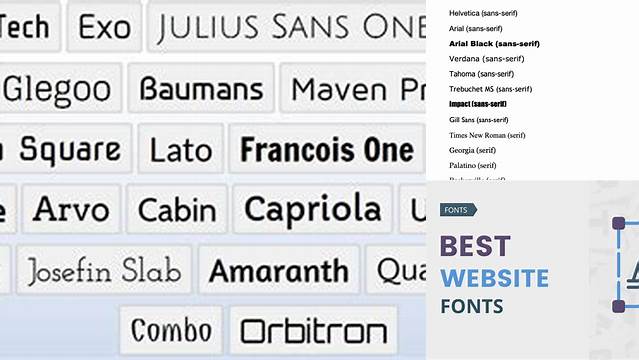
Web Fonts CSS Link: A Comprehensive Guide
Introduction: Web Fonts and Their Importance
Hey guys! Let's dive into the world of web fonts, which are super important for making your website look awesome and professional. Web fonts are essentially font files that you can link to your website, allowing you to use custom fonts that aren't necessarily installed on a user's computer. This is a game-changer because, without web fonts, you're limited to the standard, system-installed fonts like Arial, Times New Roman, or Verdana. While these fonts are okay, they can make your site look a bit dated and generic. By using web fonts, you can choose fonts that perfectly match your brand and design, making your website stand out and giving it a unique personality. Think of it like choosing the perfect outfit – the right font can make all the difference!
So, why are web fonts so crucial? First and foremost, they enhance the user experience. A well-chosen font can improve readability, making your content more engaging and easier to digest. Imagine reading a long article in a font that's hard on the eyes – you'd probably click away pretty quickly, right? With the right font, you can keep visitors on your page longer and reduce bounce rates. Secondly, web fonts play a significant role in branding. Consistency in your font choices across your website and other marketing materials helps to reinforce your brand identity. It’s like having a signature look that people instantly recognize. Using unique and stylish fonts can set you apart from the competition and create a memorable impression. Furthermore, web fonts are essential for creating a professional and polished look. A modern, well-designed font can elevate your website from looking amateurish to top-notch. This is especially important for businesses and organizations that want to project an image of credibility and expertise. Using a well-chosen web font shows that you pay attention to detail and care about the visual experience of your visitors. Finally, web fonts offer flexibility and control. You have a vast array of fonts to choose from, each with its own unique characteristics and style. Whether you're looking for a classic serif font for a traditional feel, a modern sans-serif for a clean look, or a quirky display font for a creative touch, there’s a web font out there for you. This flexibility allows you to tailor your website’s typography to perfectly match your content and brand. In the following sections, we'll explore how to link web fonts using CSS, where to find great fonts, and best practices for using them effectively.
Linking Web Fonts with CSS: A Step-by-Step Guide
Alright, let's get into the nitty-gritty of linking web fonts with CSS. It might sound a bit technical, but trust me, it’s pretty straightforward once you get the hang of it. Linking web fonts involves telling your website where to find the font files and how to use them. There are a few different ways to do this, but the most common method involves using the @font-face rule in your CSS. This rule allows you to specify the font family name, the URL where the font file is located, and other important properties. Think of it as creating a custom font profile for your website. First things first, you'll need to get your hands on some web font files. There are many places to find them, including Google Fonts, Adobe Fonts, and various other font foundries and marketplaces. Once you've downloaded your font files (usually in formats like .woff, .woff2, .ttf, or .otf), you'll need to upload them to your website's server. A common practice is to create a dedicated folder, such as "fonts," in your website's root directory to keep things organized. After you've uploaded the font files, the next step is to add the @font-face rule to your CSS. This rule goes inside your stylesheet (either an external .css file or within <style> tags in your HTML). Here's the basic structure of the @font-face rule:
@font-face {
font-family: 'Your Font Name';
src: url('path/to/your/font.woff2') format('woff2'),
url('path/to/your/font.woff') format('woff');
font-weight: normal;
font-style: normal;
}
Let's break this down: font-family: This is the name you'll use to refer to your font in your CSS. Choose a name that's descriptive and easy to remember. src: This specifies the URL(s) where your font files are located. It's a good idea to provide multiple font formats (like .woff2 and .woff) for better browser compatibility. format: This tells the browser the format of the font file. font-weight: This specifies the weight of the font (e.g., normal, bold, 600). font-style: This specifies the style of the font (e.g., normal, italic). Once you've added the @font-face rule, you can use your custom font in your CSS just like any other font. Simply use the font-family property and specify the name you gave your font in the @font-face rule. For example:
body {
font-family: 'Your Font Name', sans-serif;
}
h1 {
font-family: 'Your Font Name', serif;
}
In this example, we're setting the font for the entire body of the page to "Your Font Name," and if that font isn't available, the browser will fall back to a generic sans-serif font. We're also setting the font for <h1> headings to "Your Font Name," with a fallback to a serif font. And that's it! You've successfully linked a web font using CSS. Remember to adjust the paths to your font files and the font family names to match your specific setup. In the next section, we'll explore some great places to find web fonts for your projects.
Where to Find Great Web Fonts: Resources and Recommendations
Now that you know how to link web fonts using CSS, the next question is: where do you find these awesome fonts? Luckily, the internet is brimming with fantastic resources for web fonts, both free and paid. Let's explore some of the best options out there. One of the most popular and go-to resources for web fonts is Google Fonts. It's a free service provided by Google that offers a vast library of open-source fonts. The best part? Google Fonts makes it incredibly easy to embed fonts into your website. You can either link to the fonts directly from Google's servers or download the font files and host them yourself. The interface is user-friendly, allowing you to browse fonts by categories, styles, and popularity. Plus, you can even preview how different fonts look with your own text. To use Google Fonts, simply head over to the Google Fonts website, find a font you like, and click on it. You'll see options to customize the font weights and styles, and Google will provide you with the necessary CSS code to embed the font into your website. It’s super convenient and a great starting point for anyone new to web fonts.
Another excellent resource is Adobe Fonts (formerly Typekit). If you're an Adobe Creative Cloud subscriber, you likely already have access to Adobe Fonts as part of your subscription. Adobe Fonts offers a curated collection of high-quality fonts from some of the world's leading type foundries. The integration with Adobe's creative tools (like Photoshop and InDesign) is seamless, making it a favorite among designers. Like Google Fonts, Adobe Fonts allows you to easily embed fonts into your website by linking to them from Adobe's servers. The selection is vast and diverse, with fonts ranging from classic to contemporary styles. Adobe Fonts is a fantastic option if you're looking for professional-grade fonts and have an Adobe Creative Cloud subscription. Beyond Google Fonts and Adobe Fonts, there are numerous other font foundries and marketplaces where you can find web fonts. Sites like MyFonts, Fontspring, and Linotype offer a wide range of fonts, both free and paid. These marketplaces often feature fonts from independent designers and smaller type foundries, giving you access to unique and niche fonts that you might not find elsewhere. While many of these fonts come with a price tag, the investment can be well worth it if you're looking for something truly special to set your website apart. When choosing a font, it’s essential to consider your brand and the overall design of your website. Think about the message you want to convey and the personality you want to project. A playful, handwritten font might be perfect for a children's website, but it might not be the best choice for a corporate site. Similarly, a bold, modern font could work wonders for a tech startup but might feel out of place for a traditional law firm. Take your time to explore different options and experiment with different fonts to find the perfect fit for your project.
Best Practices for Using Web Fonts: Performance and Readability
So, you've found some amazing web fonts and know how to link them to your website – great! But before you go font-crazy, let's talk about some best practices for using web fonts effectively. Using web fonts can significantly enhance your website's appearance, but it's crucial to do it right to avoid performance issues and ensure a good user experience. One of the most important considerations is performance. Web fonts are essentially files that need to be downloaded by the user's browser, which can add to your page load time. The more fonts you use and the larger the font files, the slower your website can become. Slow websites are a big no-no because they can lead to higher bounce rates and a poor user experience. Nobody likes waiting around for a page to load! To optimize performance, it's generally a good idea to limit the number of web fonts you use on your site. Stick to a maximum of two or three different fonts to keep things streamlined. Too many fonts can make your site look cluttered and unprofessional anyway. Also, be mindful of the font weights and styles you're using. Each weight (e.g., regular, bold, italic) requires a separate font file, so only load the weights you actually need. For example, if you're only using the regular and bold weights of a font, don't load the italic or semi-bold versions. Another way to improve performance is to use web font formats that are optimized for the web, such as .woff2 and .woff. These formats offer better compression and browser support compared to older formats like .ttf. When you download fonts from services like Google Fonts or Adobe Fonts, they often provide multiple formats to ensure compatibility across different browsers. Hosting your fonts locally can also improve performance. When you link to fonts directly from services like Google Fonts, the fonts are served from Google's servers. While this is convenient, it can introduce a slight delay. By hosting the font files on your own server, you have more control over caching and delivery, which can result in faster load times. However, this also means you're responsible for ensuring the font files are properly served and optimized.
Readability is another crucial factor to consider when using web fonts. After all, the primary purpose of typography is to make your content easy to read. A beautiful font is useless if it's hard on the eyes. Choose fonts that are legible at different sizes and on different devices. Test your font choices on various screen sizes to ensure they look good on desktops, tablets, and smartphones. Pay attention to the font size and line height. Text that is too small or too tightly spaced can be difficult to read, while text that is too large or too loosely spaced can look awkward. Aim for a font size that is comfortable to read and a line height that provides adequate spacing between lines. Also, consider the contrast between the text and the background. Low contrast can make text difficult to read, especially for users with visual impairments. Use sufficient contrast to ensure your text stands out against the background. For example, dark text on a light background is generally easier to read than light text on a dark background. In addition to these technical considerations, it's also important to think about the overall aesthetic of your website. Choose web fonts that complement your brand and design. The fonts you use should reflect the personality and tone of your website. A modern, minimalist website might benefit from a clean sans-serif font, while a more traditional website might look better with a classic serif font. Don't be afraid to experiment with different fonts and combinations, but always keep readability and performance in mind. By following these best practices, you can use web fonts to create a visually appealing and user-friendly website that leaves a lasting impression.
Linking web fonts with CSS is a straightforward process, thanks to the @font-face rule. By specifying the font family name and the URL of the font file, you can easily incorporate custom fonts into your website. Services like Google Fonts and Adobe Fonts have made this process even easier by providing ready-to-use CSS code snippets. When choosing web fonts, consider your brand, the overall design of your website, and the message you want to convey. There are countless fonts to choose from, each with its own unique personality and style. Experiment with different fonts and combinations to find the perfect fit for your project. Don't be afraid to mix and match fonts, but always ensure they complement each other and maintain readability. Performance is a critical factor to keep in mind when using web fonts. Loading too many fonts or using large font files can slow down your website, leading to a poor user experience. Limit the number of fonts you use, choose optimized font formats, and consider hosting your fonts locally to improve performance. Readability is paramount. A beautiful font is useless if it's difficult to read. Choose fonts that are legible at different sizes and on different devices. Pay attention to font size, line height, and contrast to ensure your text is easy on the eyes. By following these best practices, you can use web fonts to create websites that are not only visually appealing but also user-friendly and performant. Web fonts are a powerful tool for web designers, and mastering them will undoubtedly take your web design skills to the next level. So go ahead, explore the world of web fonts, and create some stunning websites!